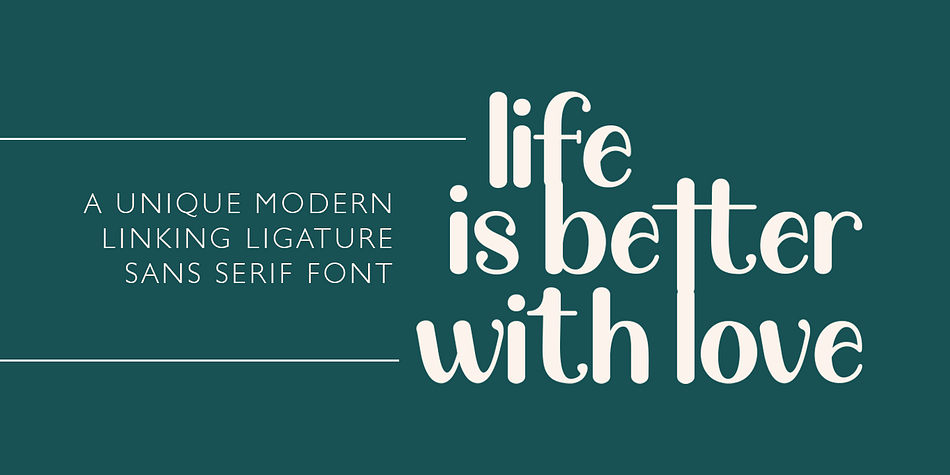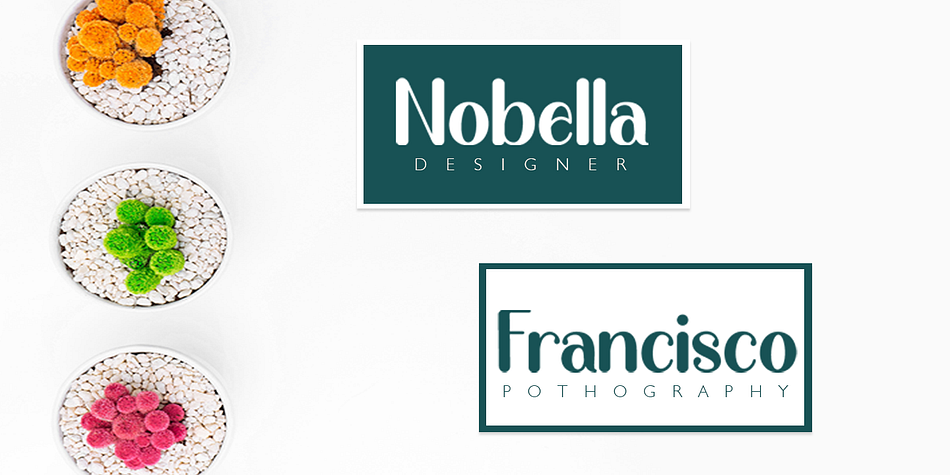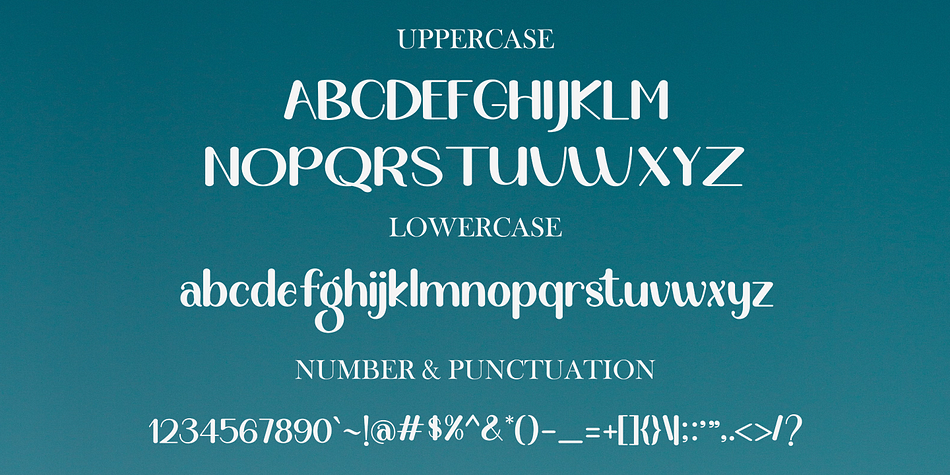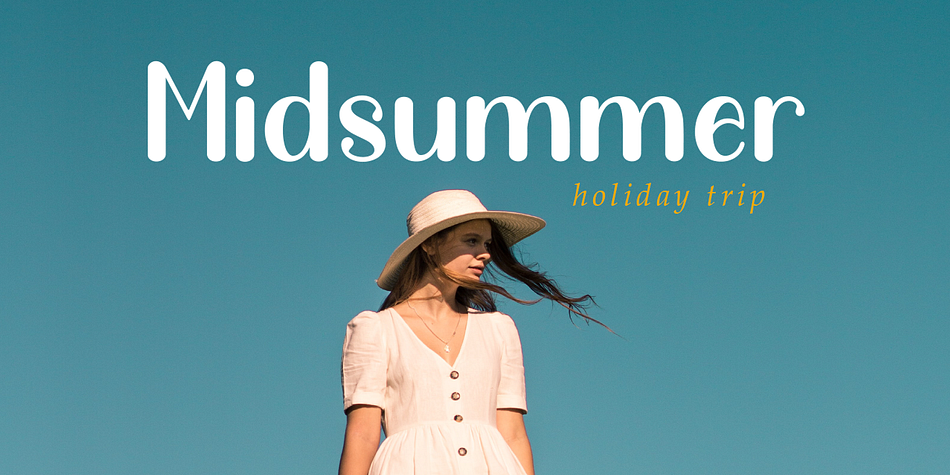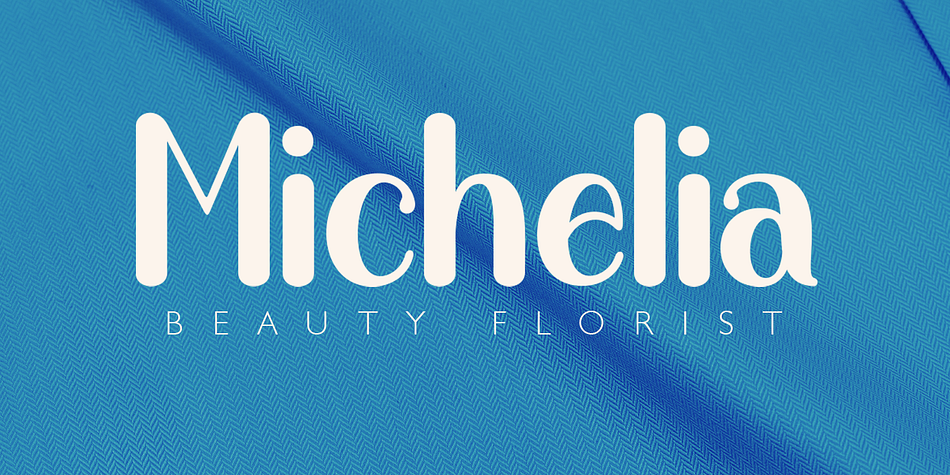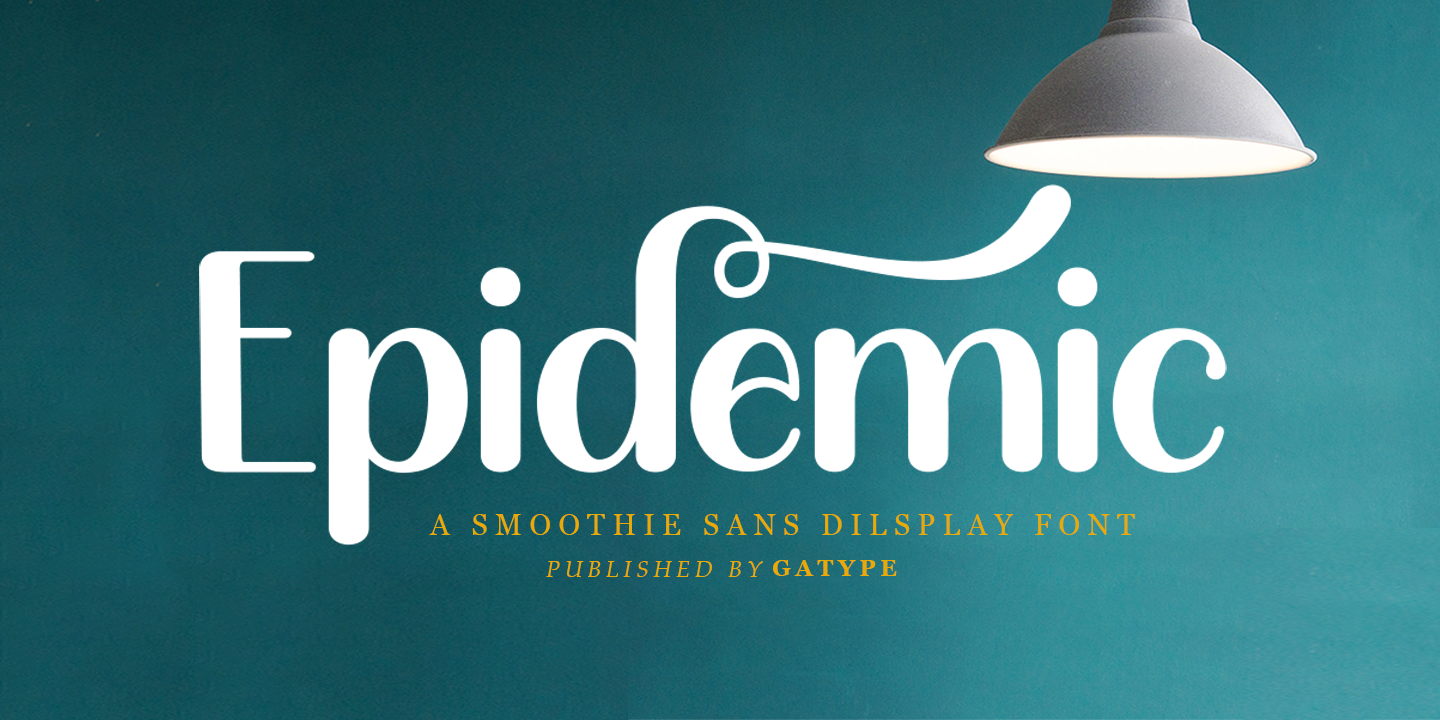
Epidemic
Epidemic is a display sans font family published by Gatype.
Epidemic is a bold display font that is simple and unique looking. This customizable font will look great on a variety of design ideas such as Christmas themes, valentines, posters, invitations, weddings, branding projects, social media posts, magazines, book covers and more! This will add a fun and friendly touch to any of your projects. This font is PUA encoded which means you can access all the glyphs and sweeps easily.